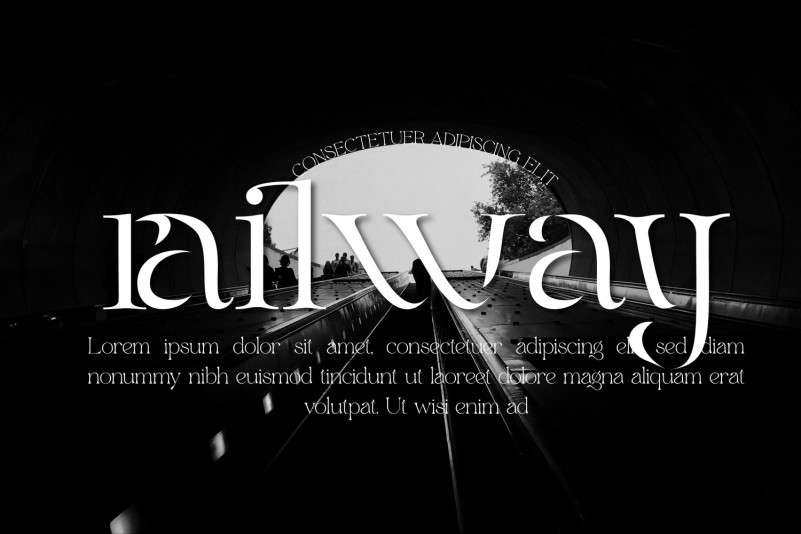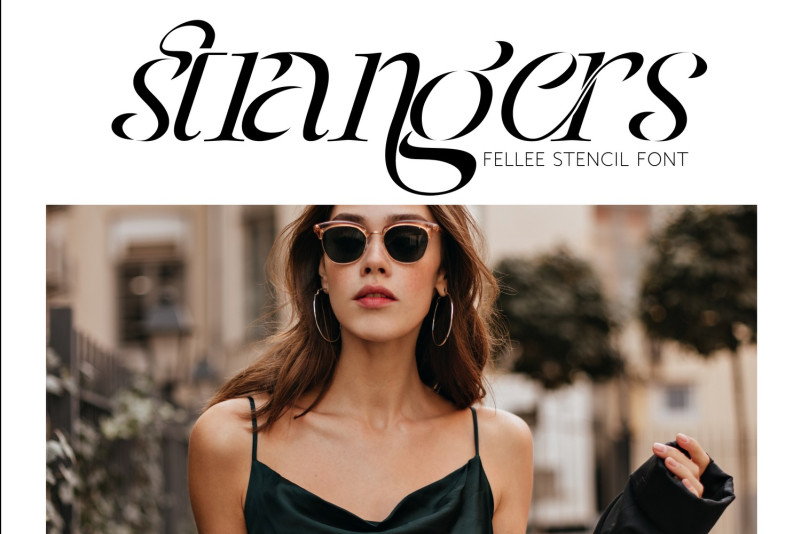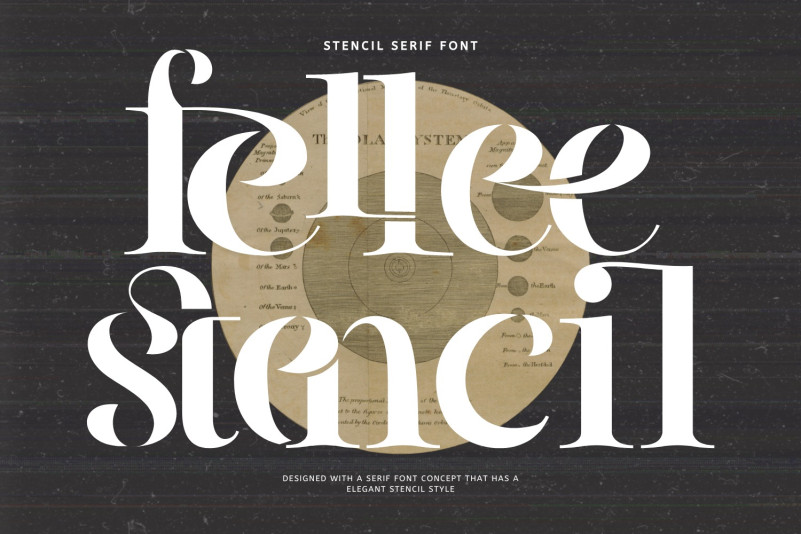
Fellee Stencil Font
Fellee Stencil Font is designed with a serif font concept that has a elegant stencil style. Irregular dynamic shapes but impressively regular and unique make the font different and steal attention. This typeface is perfect for an elegant & luxury logo , classy editorial design, women’s magazine, fashion brand , cosmetic brand, fashion promotion , modern advertising design, invitation card, art quote, home decoration , book/cover titles, special events, and much more.
To make it look more unique, here we prepared some ligatures:
ac ad al an ar as at au av be ca ce ch co ct de di ea ec ed ee el em en ep er es et fe fo fr ge he hi ho ie ic il in io ir is it ju ke la le li ll lo ly ma me mi nc nd ne ng no nt ns oc of om on oo op or ot ou ow pa pr ra rl re ri ro rs rt se sh si so ss st ta te th ti to tr tt um un ur wi wo